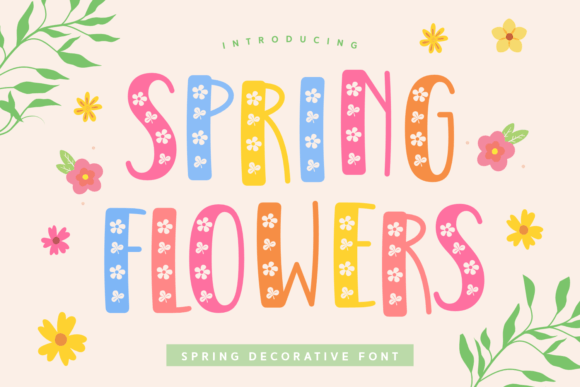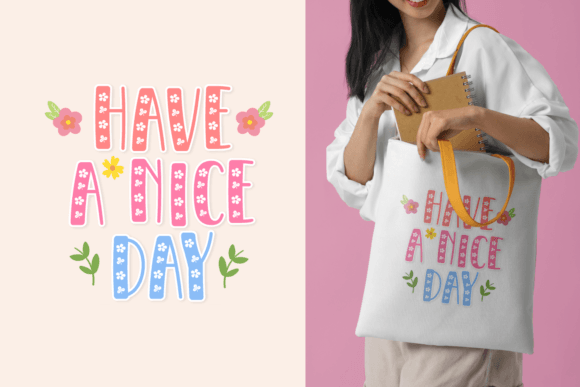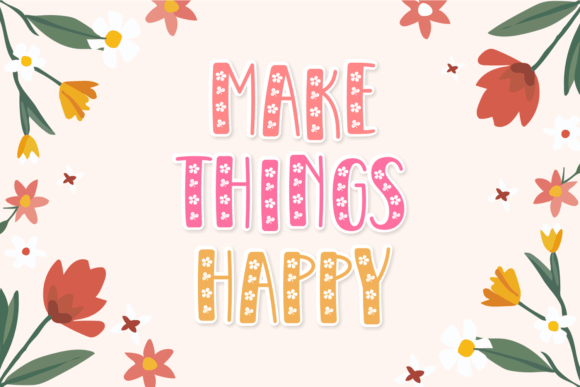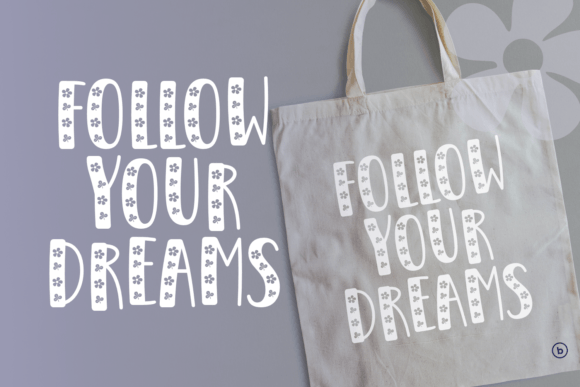
Spring Flowers Font
About the Spring Flowers Font
Step up your design game with Spring Flowers Font, a font that exudes confidence and style. Spring Flowers is a spring decorative font that beautifully integrates floral elements into its design, capturing the essence of spring and the natural beauty of blooming flowers. This typeface is perfect for projects that require a fresh, vibrant, and nature-inspired aesthetic. Whether used for invitations, branding, packaging, or decor, “Spring Flowers” adds a fresh, elegant, and nature-inspired touch that is sure to captivate and delight.
Spring Flowers Font Usage Examples
Spring Flowers Font Example